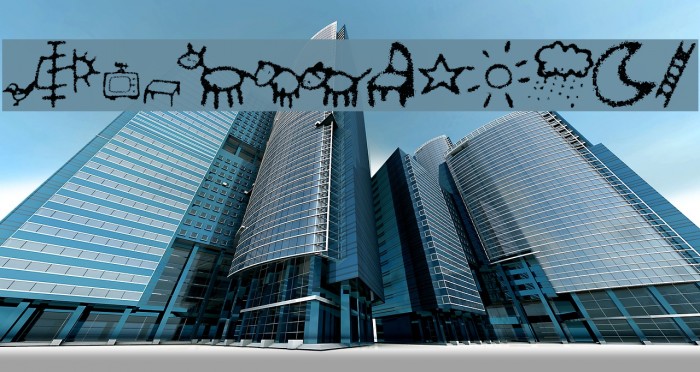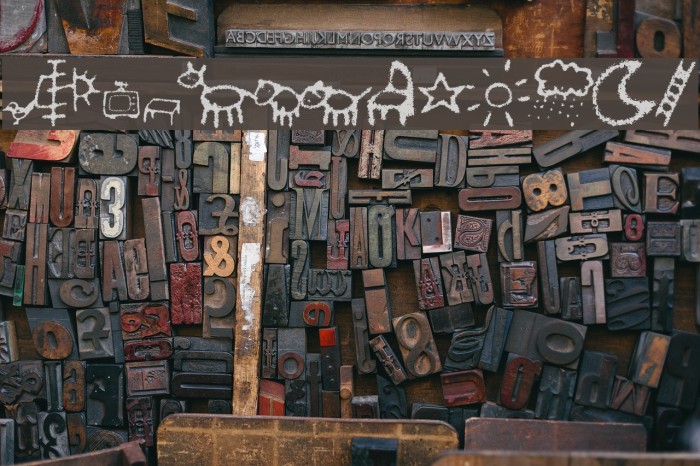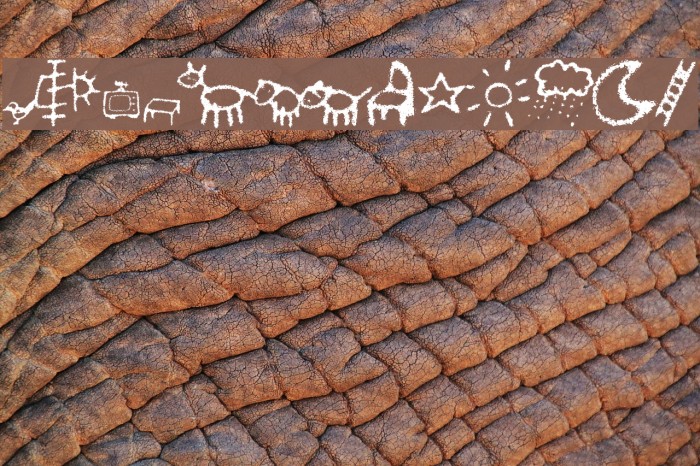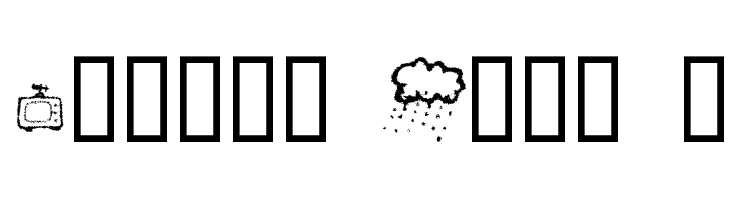
Crayon Kids 2 Font
This whimsical and playful font captures the essence of a child's crayon drawings, featuring charming and irregular strokes that mimic the look of hand-drawn art. The characters are creatively designed with a sense of innocence and spontaneity, making them perfect for projects that aim to evoke a sense of fun and creativity. The font includes a variety of quirky illustrations, such as animals and celestial symbols, adding to its unique and imaginative appeal. Its uneven lines and playful forms make it ideal for children's books, educational materials, and playful branding projects. The overall style is reminiscent of a child's doodles, bringing a touch of nostalgia and joy to any design.
A playful, crayon-inspired font with whimsical, hand-drawn characters and illustrations.
- Proposed Projects: Ideal for children's books, educational materials, playful branding, and creative projects.
- Overall Style: Playful, Whimsical
- Use Case: Children's books, Educational materials, Creative projects